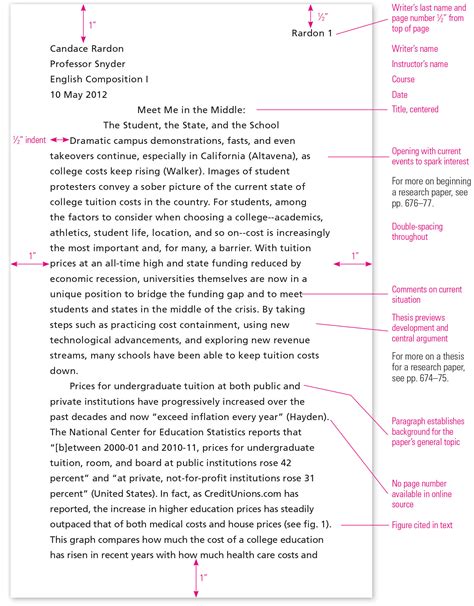
What Is Mla Font
In the realm of academic writing, formatting is crucial for maintaining consistency and professionalism. One of the most commonly used formatting styles is the Modern Language Association (MLA) style. A key aspect of MLA formatting is the choice of font, which can significantly impact the readability and presentation of your document. Understanding what is MLA font and how to use it correctly is essential for students, researchers, and professionals alike.
Understanding MLA Font Requirements
The MLA style guide specifies certain font requirements to ensure uniformity across academic papers. The primary goal is to make the text easy to read and consistent in appearance. The MLA Handbook, which is the authoritative guide for MLA formatting, recommends using a serif font for the body of the text. Serif fonts have small lines or strokes at the ends of characters, which can enhance readability, especially in printed documents.
Some commonly accepted serif fonts for MLA formatting include:
• Times New Roman
• Georgia
• Palatino
While serif fonts are preferred, the MLA style guide also allows the use of sans-serif fonts for specific elements such as headings or captions. Sans-serif fonts do not have the small lines at the ends of characters, giving them a cleaner, more modern look. Examples of sans-serif fonts include:
• Arial
• Calibri
• Helvetica
Setting Up Your Document with MLA Font
To set up your document with the appropriate MLA font, follow these steps:
3. Select a serif font from the list of available fonts. Times New Roman is a popular choice and is often the default font in many word processing programs.
4. Set the font size to 12 points. This is the standard size recommended by the MLA style guide.
5. Ensure that the line spacing is set to double-spaced. This can usually be done by selecting the entire document and choosing the double-spacing option in the paragraph settings.
6. Set the margins to 1 inch on all sides. This can be adjusted in the page layout or page setup settings.
Common MLA Font Mistakes to Avoid
While setting up your document with the correct MLA font is straightforward, there are some common mistakes to avoid:
• Using an Unacceptable Font: Stick to the recommended serif fonts. Avoid using decorative or script fonts, as they can be difficult to read and are not suitable for academic writing.
• Incorrect Font Size: Ensure that the font size is set to 12 points. Using a smaller or larger font size can affect the readability and professional appearance of your document.
• Inconsistent Font Usage: Maintain consistency throughout your document. Do not switch between different fonts unless specified by the MLA style guide or your institution's guidelines.
• Ignoring Line Spacing and Margins: Double-spaced lines and 1-inch margins are essential for MLA formatting. Failing to adhere to these guidelines can result in a poorly formatted document.
Special Considerations for MLA Font
In addition to the general guidelines, there are some special considerations to keep in mind when choosing and using an MLA font:
1. Accessibility: Ensure that the font you choose is accessible to all readers, including those with visual impairments. Serif fonts are generally more readable for people with dyslexia or other reading difficulties.
2. Consistency Across Platforms: If you are submitting your document electronically, make sure that the font appears consistently across different devices and platforms. Some fonts may not render correctly on all systems.
3. Headings and Subheadings: While the body of the text should use a serif font, you can use a sans-serif font for headings and subheadings to create a visual hierarchy. However, ensure that the font size and style are consistent with the rest of the document.
Examples of MLA Font Usage
To illustrate the correct usage of MLA font, consider the following examples:
Example 1: Correct MLA Font Usage
In this example, the document is formatted with Times New Roman, 12-point font, double-spaced lines, and 1-inch margins. The headings are in a sans-serif font (Arial) for clarity.
Example 2: Incorrect MLA Font Usage
In this example, the document uses a decorative font (Comic Sans) and a font size of 14 points. The lines are single-spaced, and the margins are not consistent. This format is not suitable for academic writing and does not adhere to MLA guidelines.